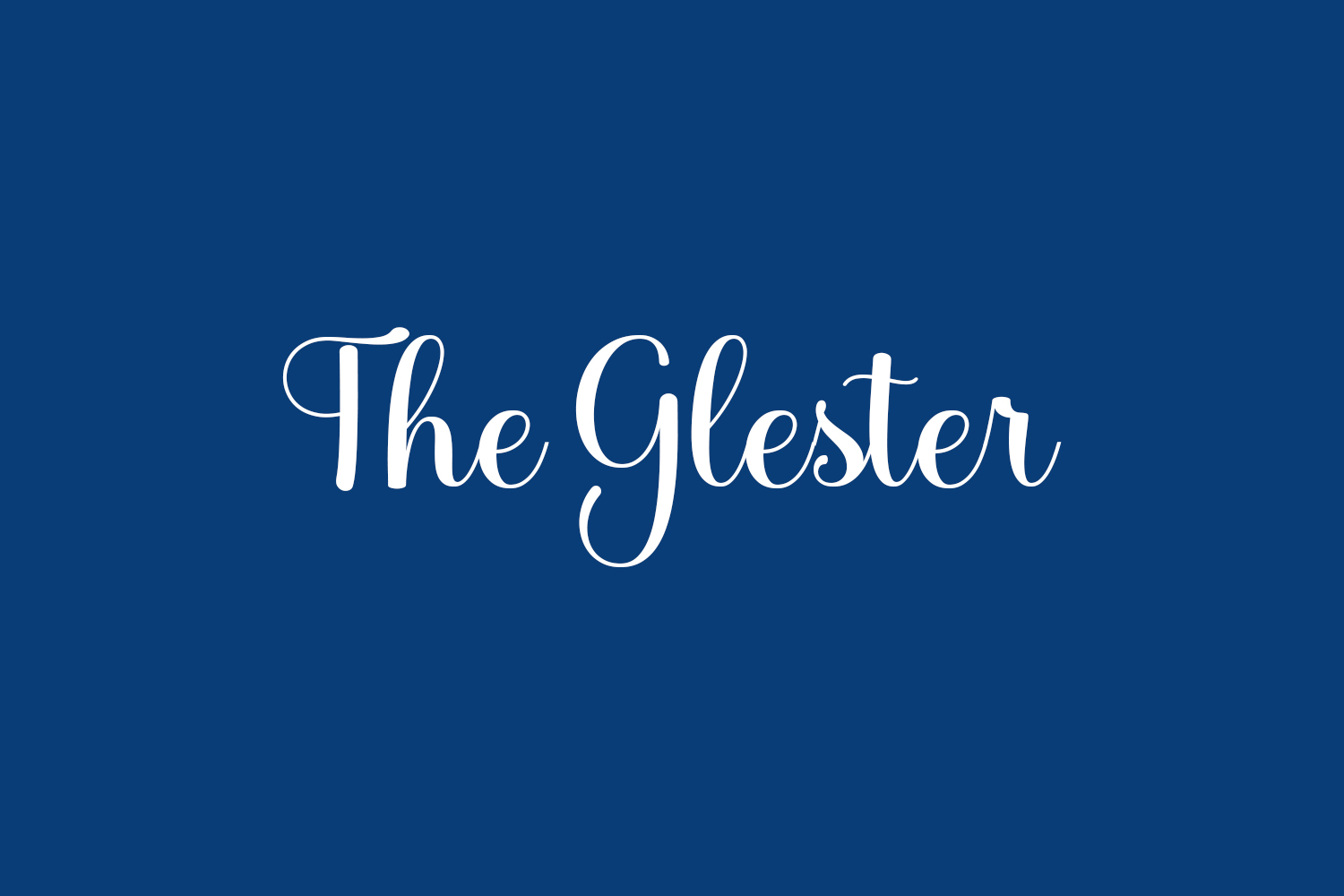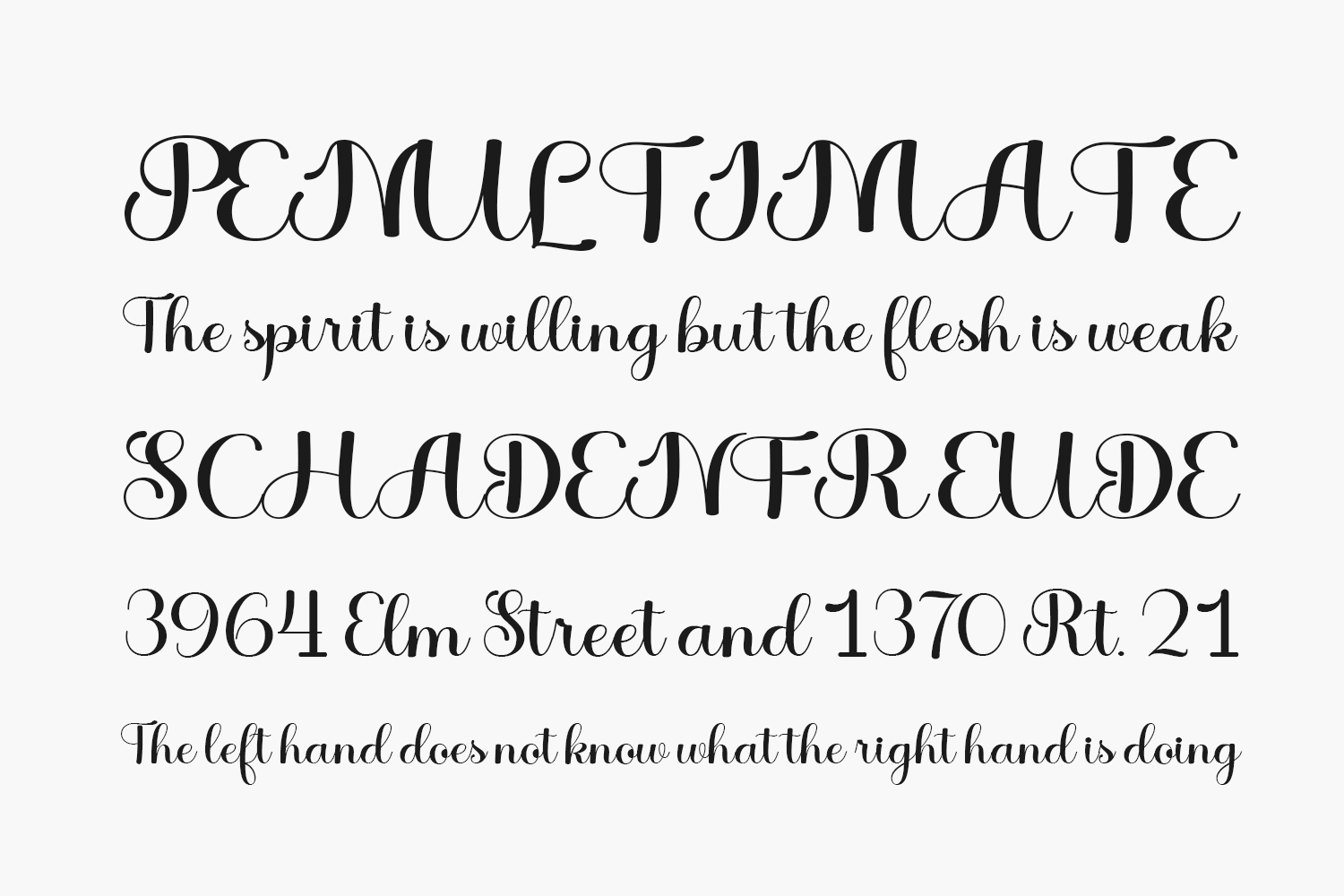
The Glester Free Font is an enchanting handwritten font. This versatile script font has a wide spectrum of applications ranging from greeting cards to headlines and is guaranteed to add a romantic feel to your next project. The Glester Free Font was designed by Nurul Kamal and is free for personal use only. Please purchase the full version for commercial use.
Designed by Nurul Kamal